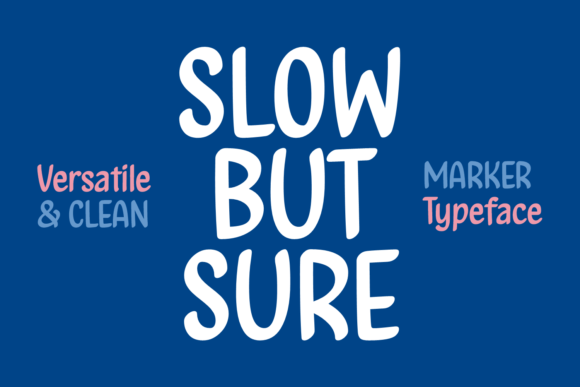
Step into the world of creative possibilities with Slow but Sure, a captivating script font family that will transform your digital creations. Designed with precision and a flair for the unique, Slow but Sure epitomizes the art of handwritten expression, effortlessly adding a touch of warmth and personality to your projects.
Immerse yourself in the fluidity of Slow but Sure's strokes, meticulously crafted to replicate the allure of a marker pen gliding across paper. Its versatile and clean aesthetic seamlessly complements a myriad of design styles, making it the perfect choice for crafting logos, branding, invitations, social media graphics, and more.
With Slow but Sure, let your creativity soar. Its enchanting charm will elevate your designs, capturing the attention of viewers and leaving a lasting impression. Embrace the beauty of individuality and authenticity as your words take shape with Slow but Sure, transforming them into visual masterpieces.
Unleash the boundless potential of Slow but Sure and embark on a creative journey like no other. Discover the joy of self-expression and let your imagination run wild as you craft designs that resonate with your unique style and vision.